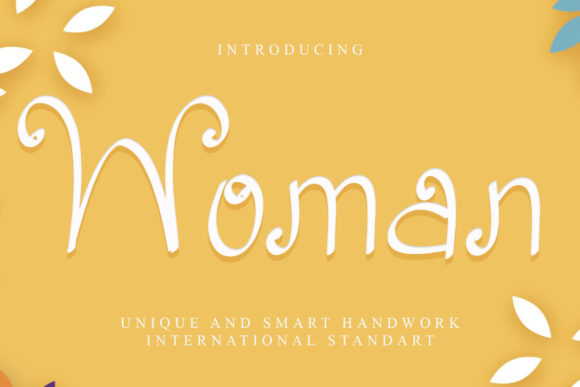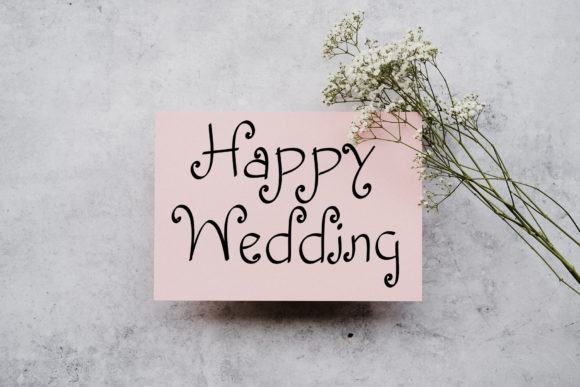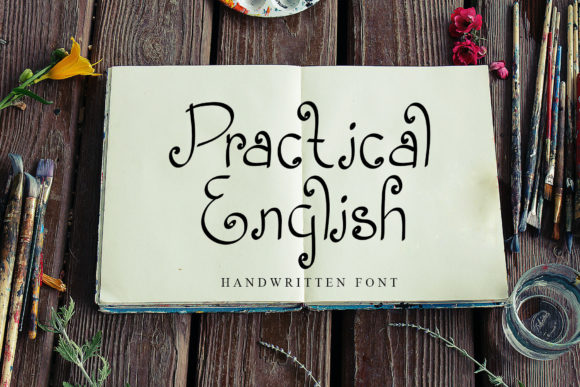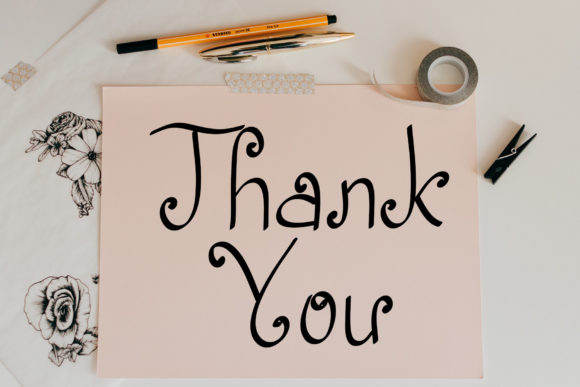
About Woman Font
“Woman” is a charming and whimsical handwritten font that exudes femininity and playfulness. With its delicate and lively style, this font is perfect for adding a touch of elegance and joy to your designs. Whether you’re creating greeting cards, invitations, fashion-related designs, social media graphics, or any other project, “Woman” will bring a delightful and vibrant atmosphere to your typography.
The sweet and dainty nature of “Woman” is evident in its carefully crafted letterforms. The soft curves, graceful strokes, and varied line weights give this font a feminine and delicate look. It captures the essence of beauty and liveliness, making it a great choice for designs that celebrate women or projects that aim to evoke a sense of gracefulness.
“Woman” can bring a whimsical and charming touch to a variety of design themes. It can be used for fashion branding, where its elegant and playful vibe adds a stylish flair to the visual identity. Additionally, it can enhance the beauty of wedding invitations, greeting cards, or other stationery designs, creating a romantic and enchanting atmosphere.
The versatility of “Woman” extends to its usage in digital media as well. It can be used for social media graphics, where its cute and whimsical nature catches the attention and creates an engaging visual experience. It can also be employed in blog designs or website headers, infusing the content with a touch of femininity and charm.
With “Woman” in your font collection, you have a delightful tool to brighten up your designs and create a joyful and elegant atmosphere. Its cute and whimsical style adds a touch of femininity and liveliness to your typography. Whether you’re designing for print or digital media, “Woman” brings a sense of gracefulness and playfulness to your visual communication.
In summary, “Woman” is a cute, whimsical, and dainty handwritten font that adds a delightful touch to your designs. With its sweet and lively style, it brings an elegant and playful atmosphere to your typography. Whether you’re creating fashion-related designs, stationery, social media graphics, or digital media, “Woman” infuses your typography with femininity and joyfulness.